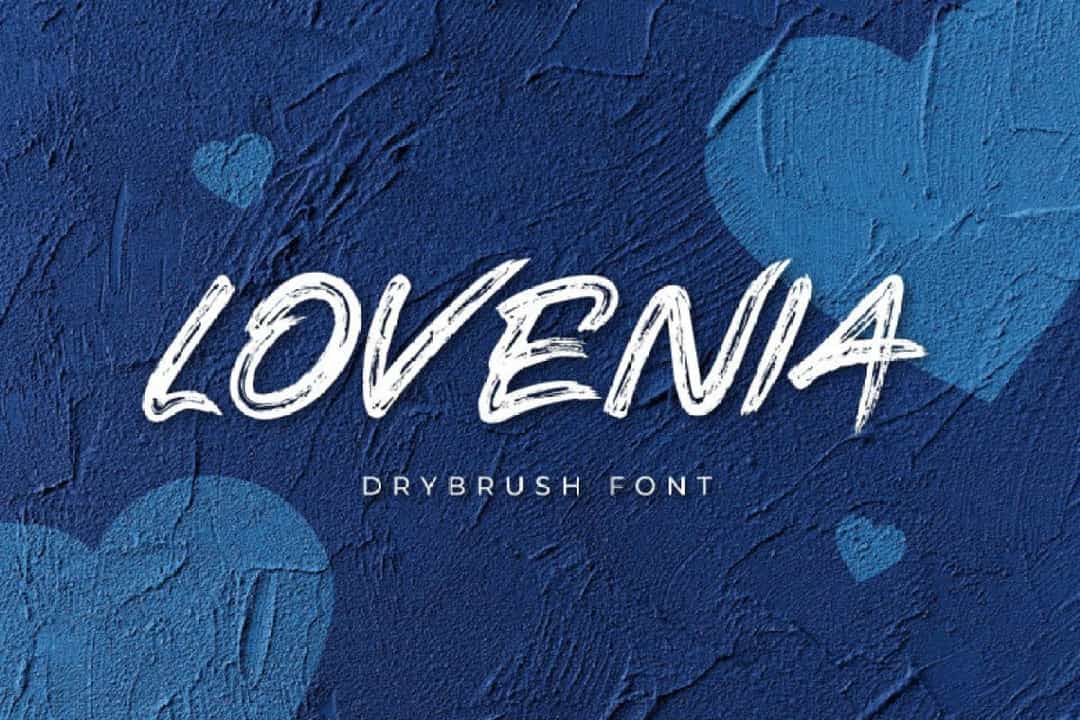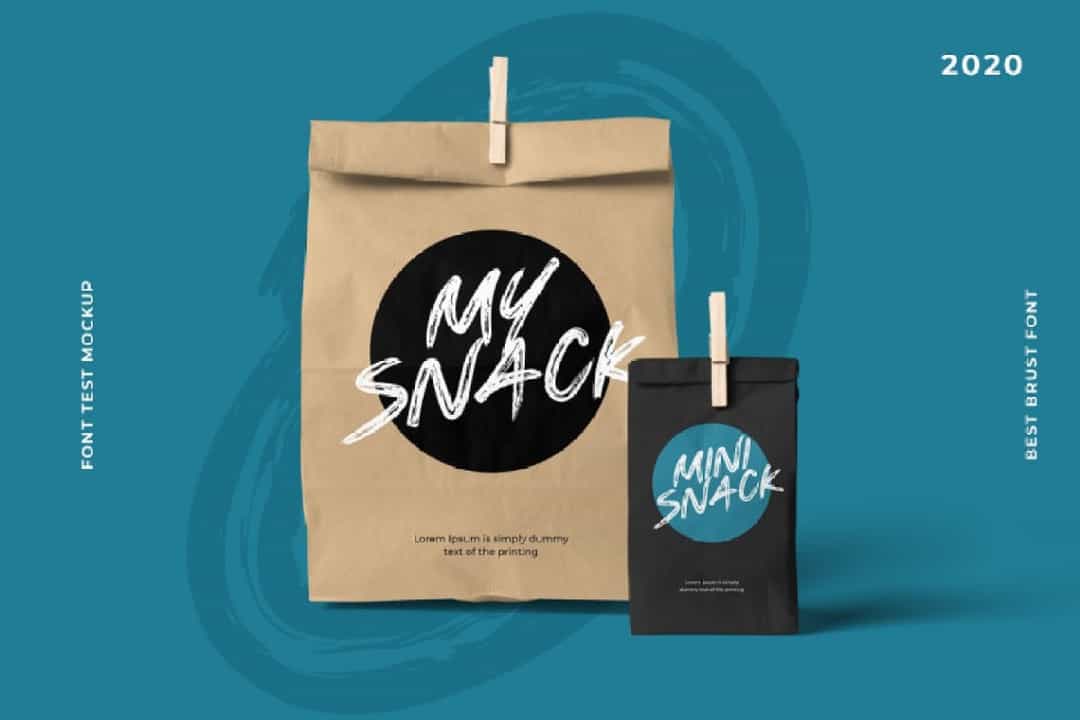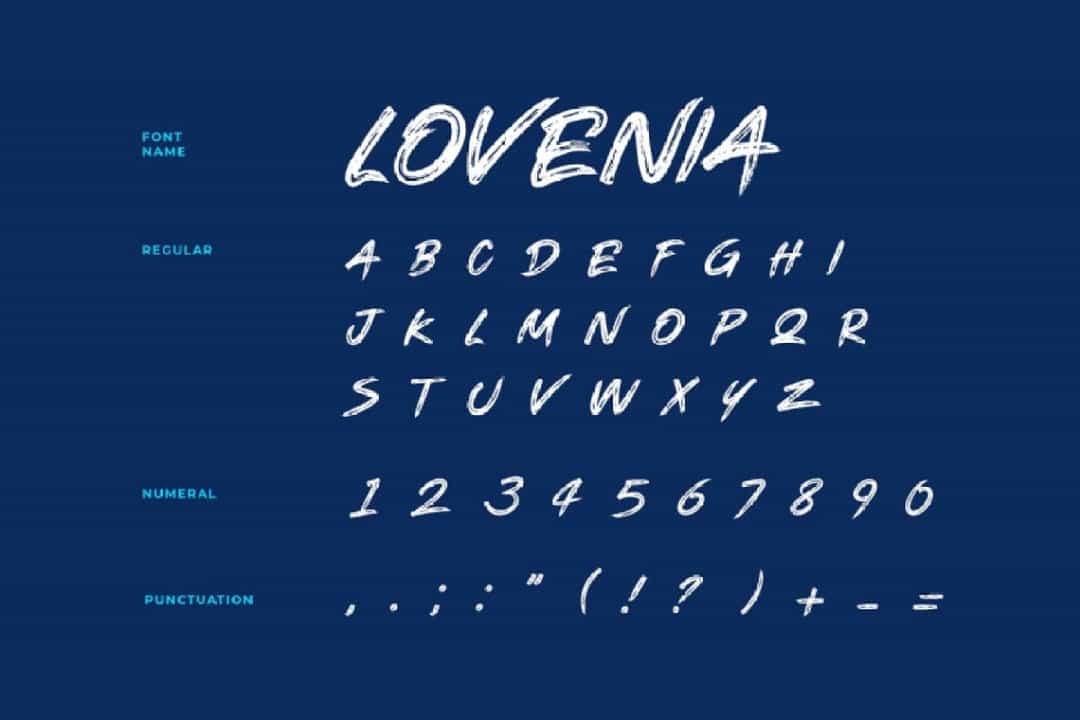
Lovenia Font is an elegant, rustic dry-brush font with an appealing aesthetic. Using thick and sturdy natural paints as inspiration for its design, Lovenia features distinctive yet identical curvatures and shapes between each font – giving each an unique appeal while remaining consistent between each font – that ensure a crisp appearance when written or read aloud. Plus, its thick weights add images and visual interest that draw people in for reading and viewing your designs!